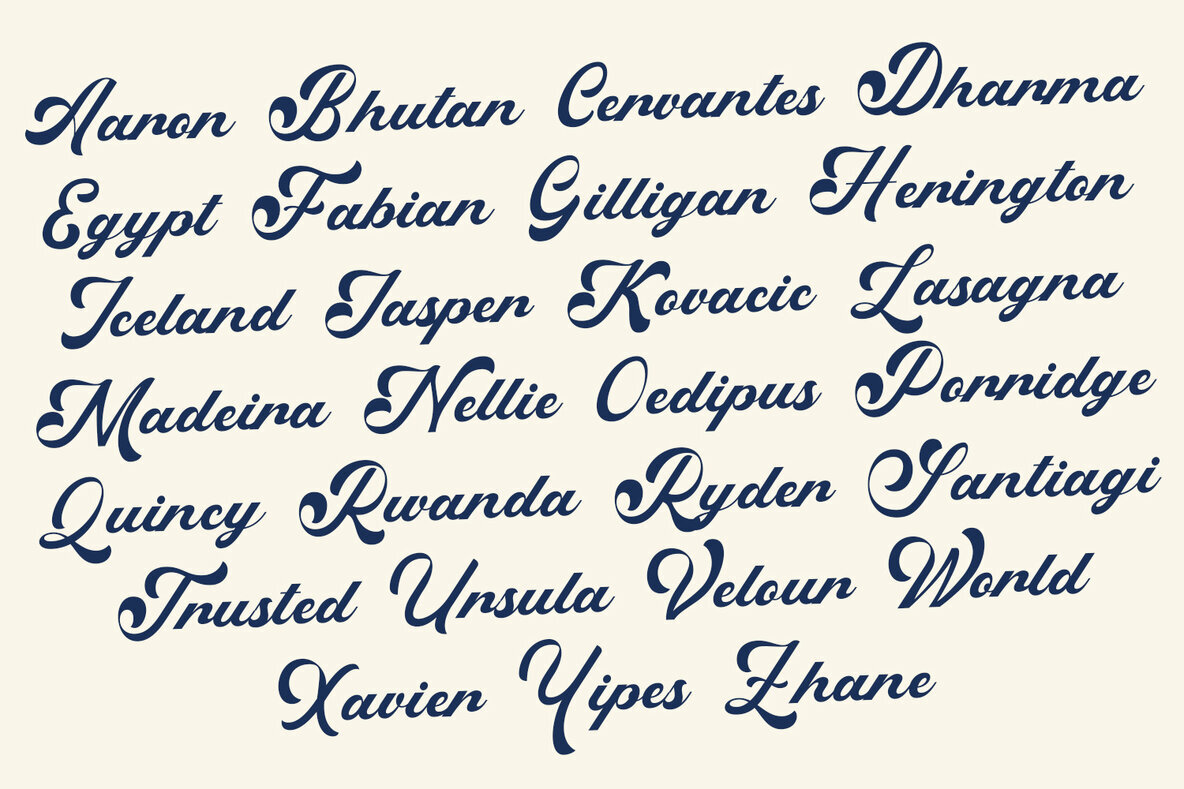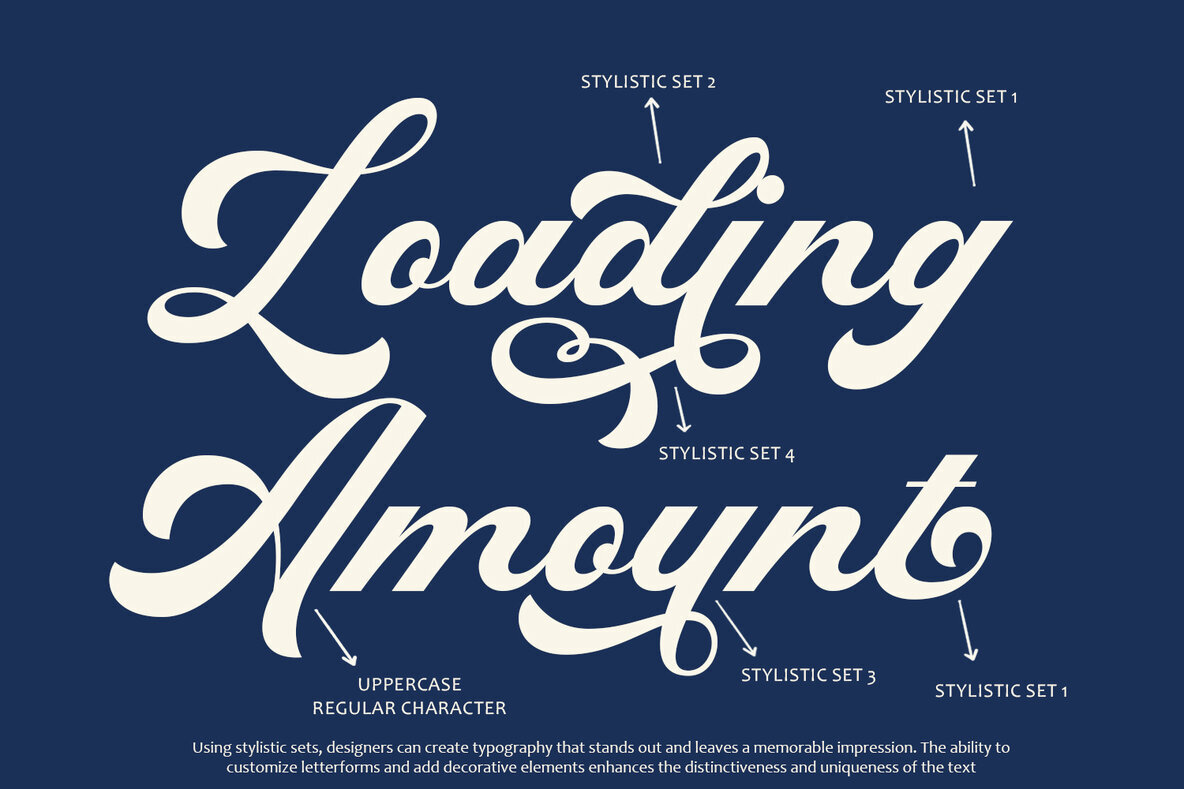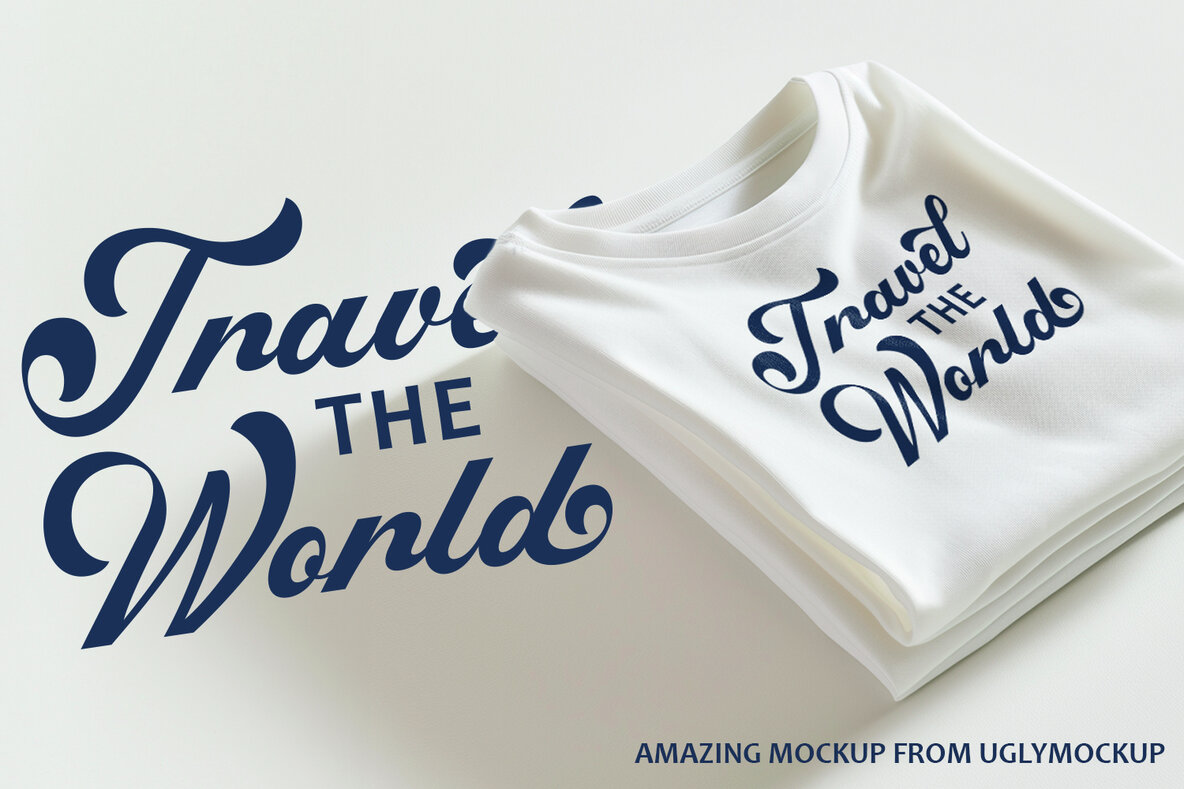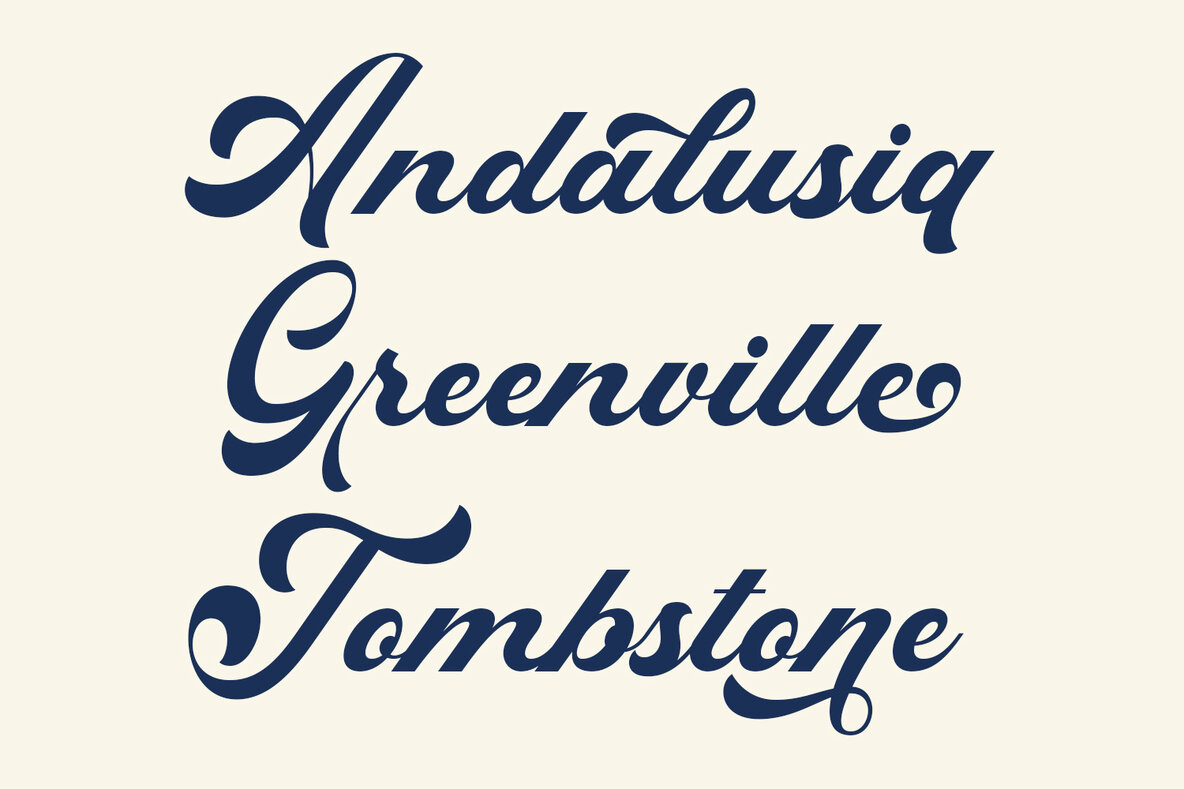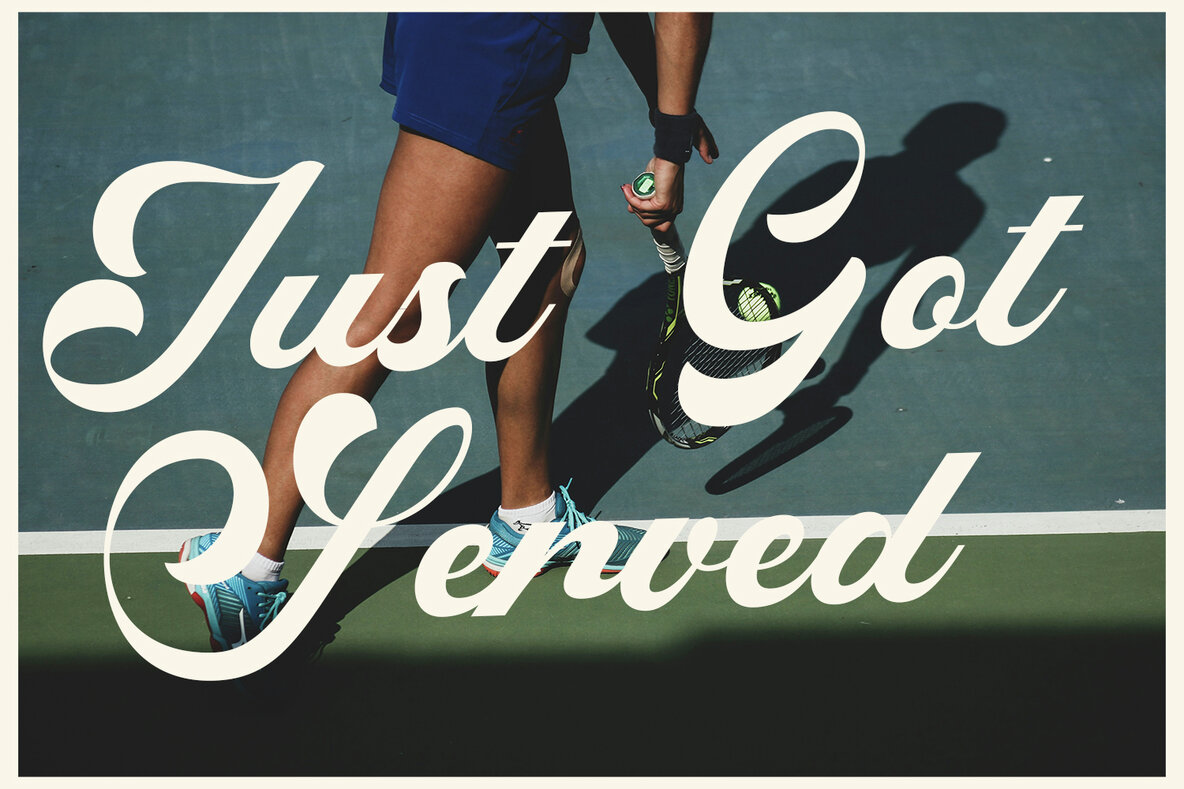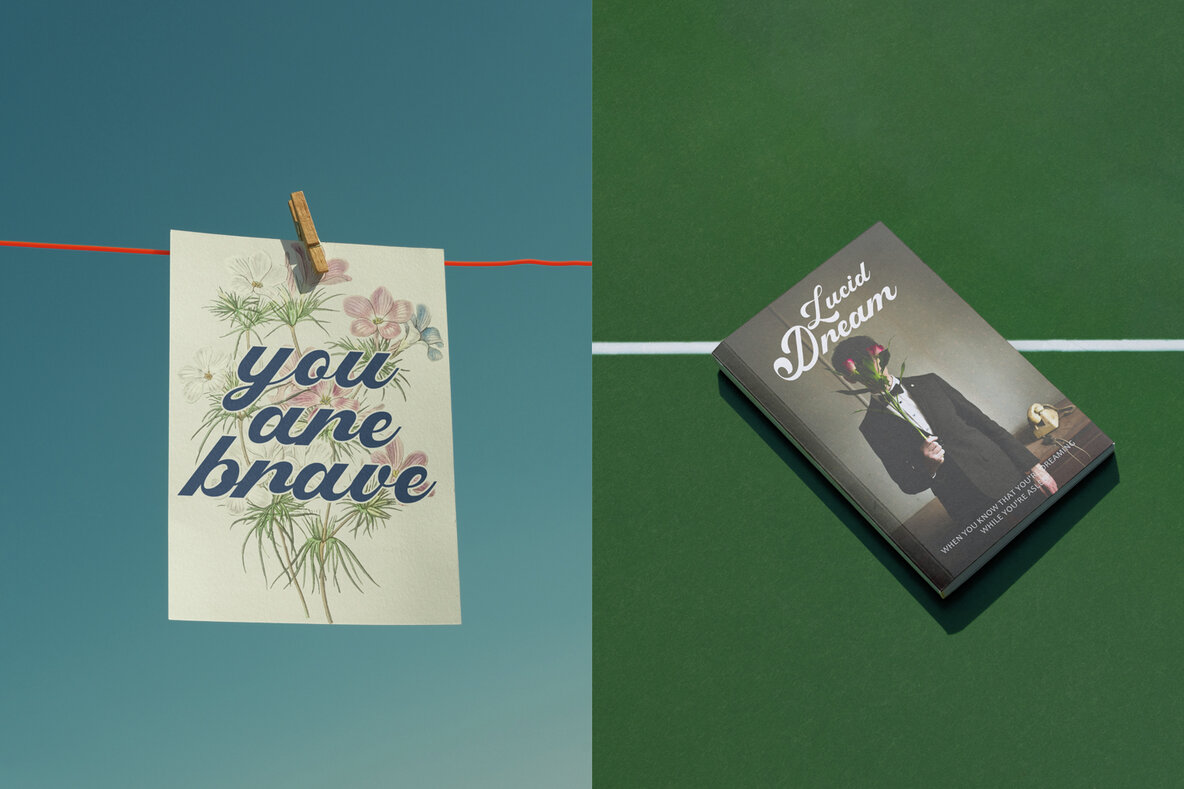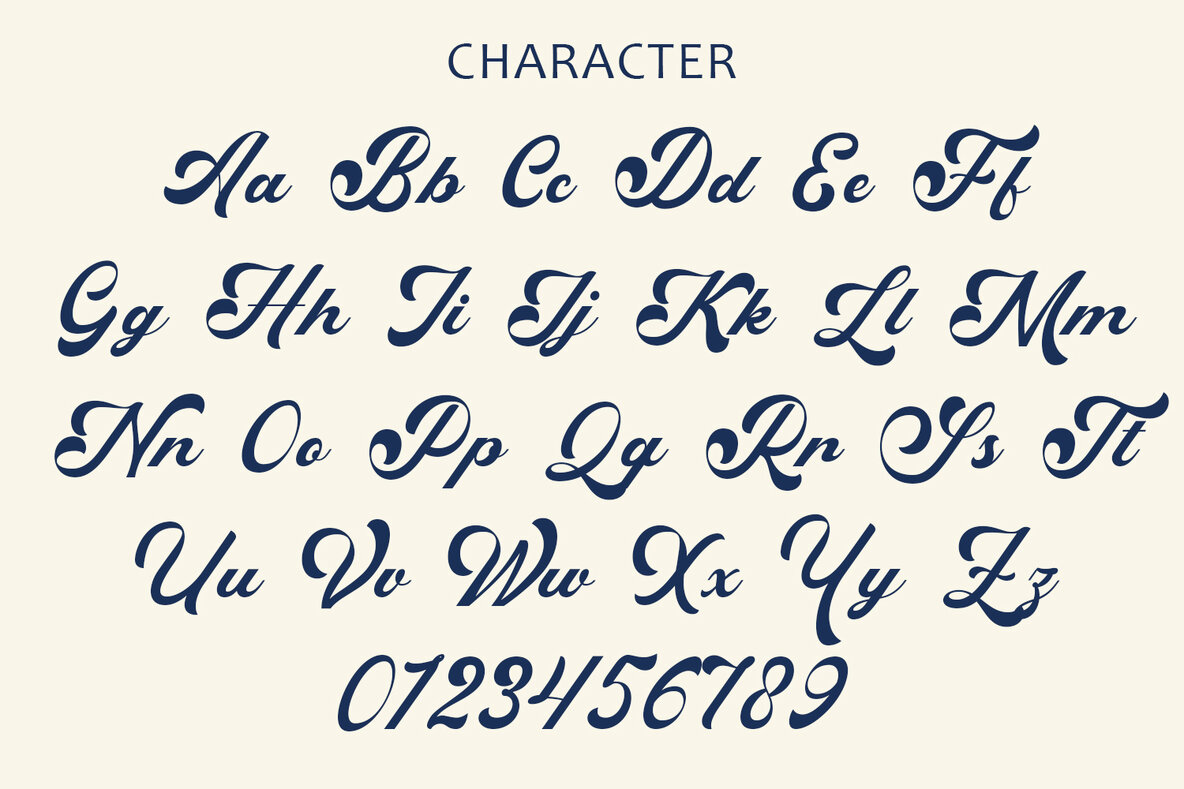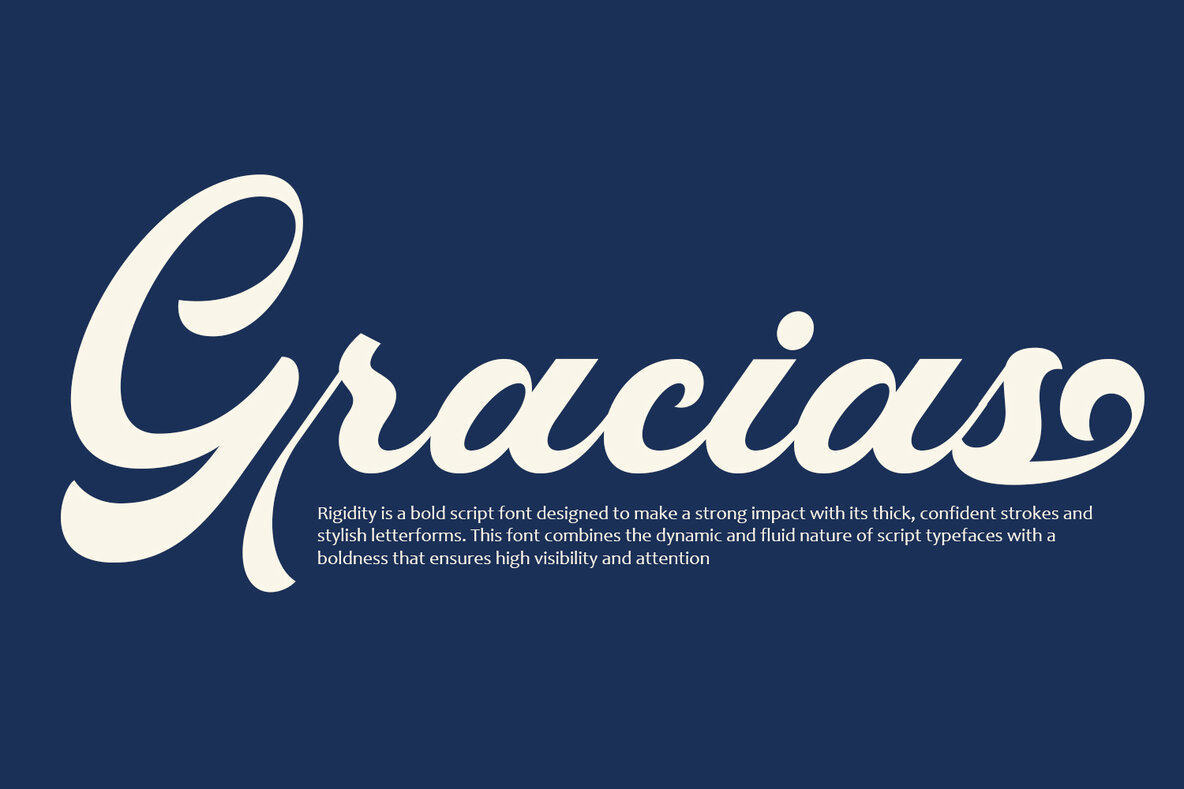
Rigidity Font
Rigidity Regular
"Rigidity" is a bold script font designed for strong visual impact with its thick, confident strokes and stylish letterforms. The font merges the fluidity of traditional scripts with a robust appearance, ensuring high visibility for your designs. Ideal for headlines, posters, and attention-grabbing elements, "Rigidity" retains the elegance of script typefaces with smooth curves and connected letters, complemented by stylish swashes and flourishes for added decorative appeal.
Its versatility makes "Rigidity" suitable for various design contexts, including branding, packaging, and social media graphics. The font pairs well with simple sans-serif or serif typefaces, offering balanced and visually appealing compositions. With a comprehensive set of glyphs, including uppercase and lowercase letters, numerals, punctuation, and special characters, "Rigidity" meets diverse design needs and supports multiple languages. This combination of bold design, readability, and creative flexibility makes "Rigidity" a valuable asset for designers seeking a font that delivers both style and substance.